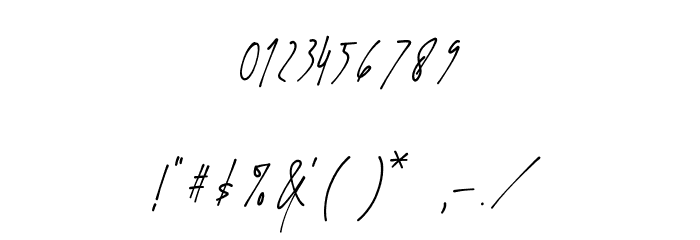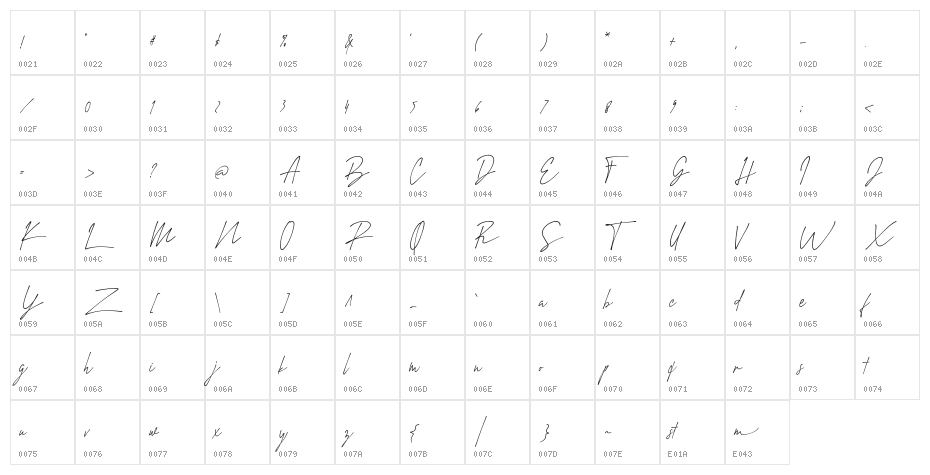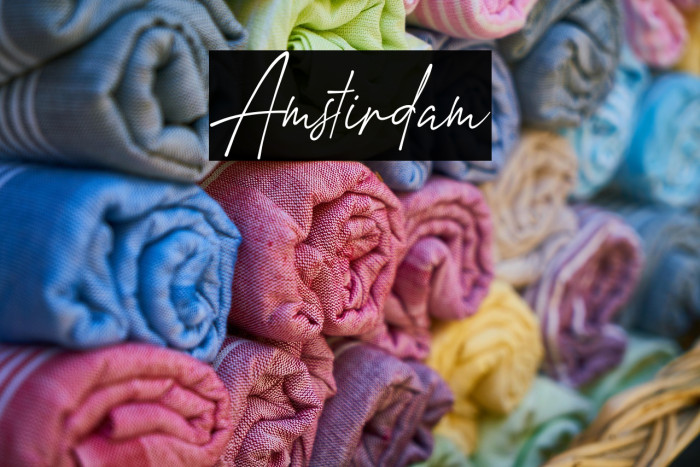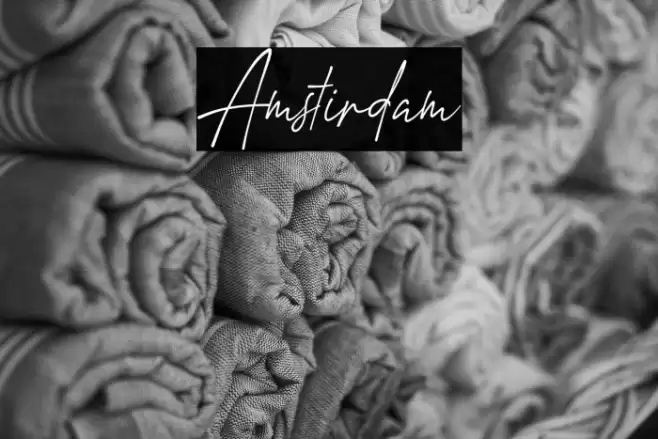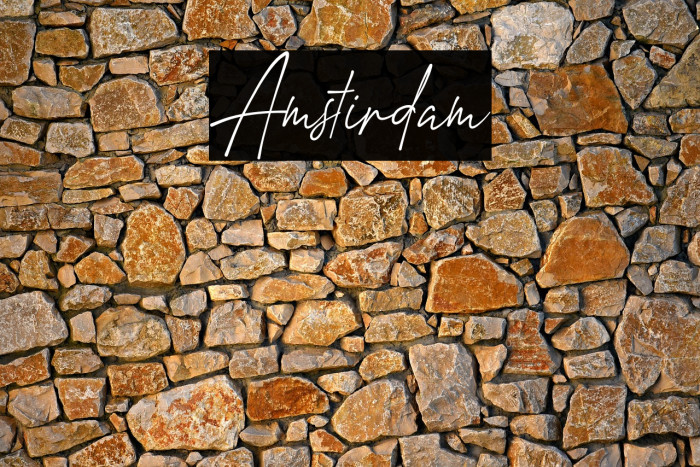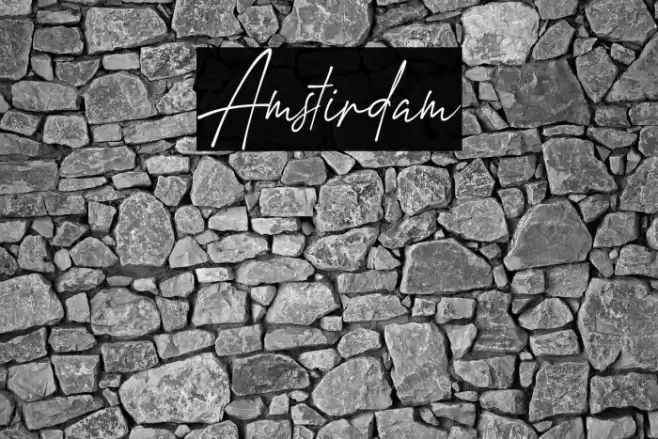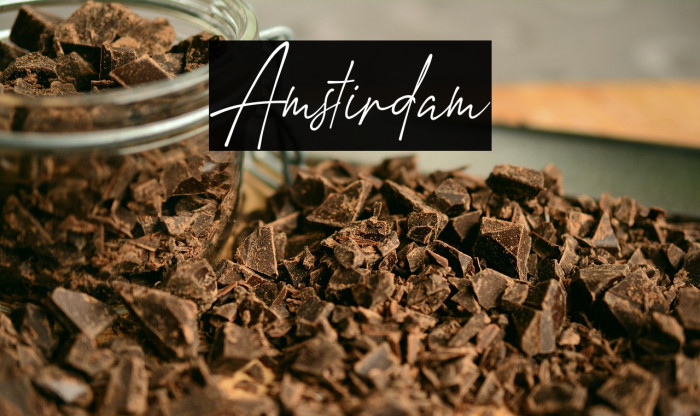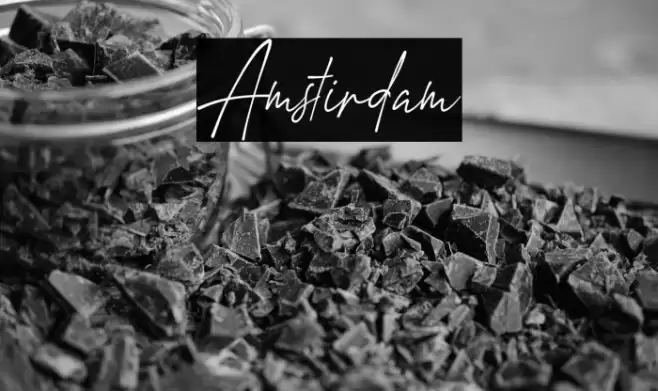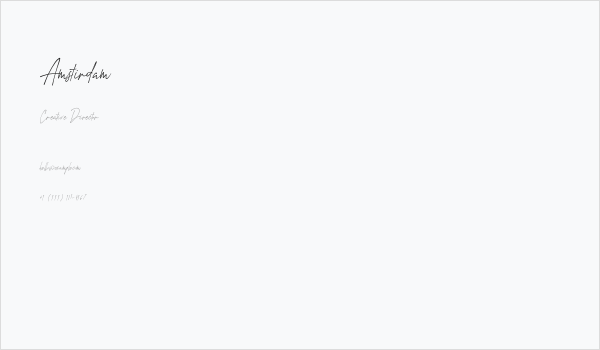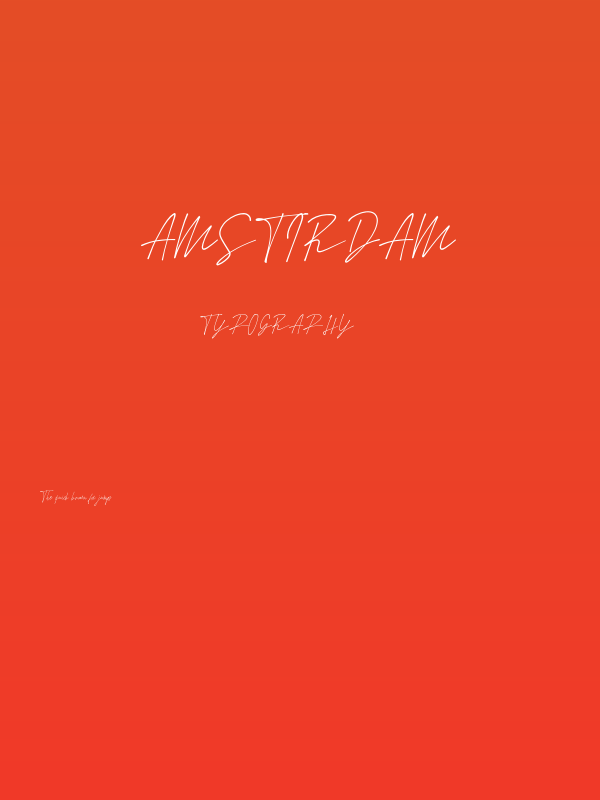
Amstirdam Font
Amstirdam Description
This font features a flowing, cursive style that mimics natural handwriting with an elegant and artistic flair. The uppercase letters are tall and slightly slanted, giving a sense of movement and dynamism. The lowercase letters are more compact, maintaining a consistent flow with subtle variations in stroke thickness. The numerals and special characters are designed to complement the overall script style, adding to its cohesive appearance. This font exudes a sense of sophistication and creativity, making it suitable for projects that require a personal touch.
Overall StyleElegant, Artistic
Use CaseLogos, Invitations, Personal Branding
Proposed ProjectsIdeal for wedding invitations, personal branding, greeting cards, and artistic projects.